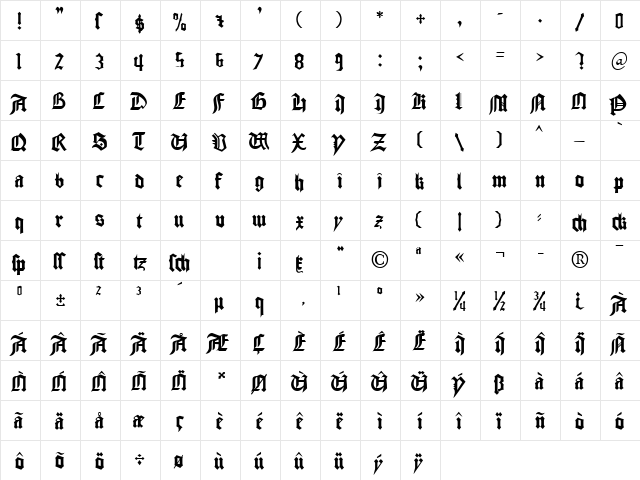
Gudenberg DB Normal
Design Context for Gudenberg DB Typeface
Gudenberg DB is a composed and adaptable typeface that performs quietly and consistently across a wide range of design contexts.